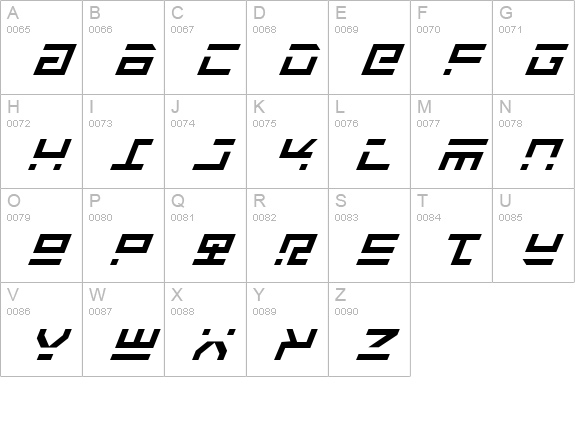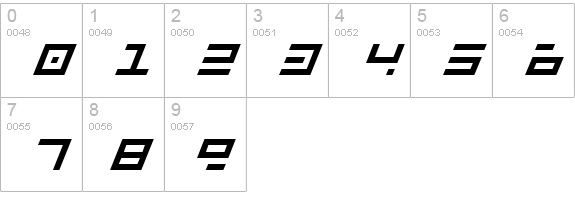
Rocket Type Italic is a distinctive, italic variant in the Rocket typeface family \xE2\x80\x94 well suited to design and typography projects.
Rocket Type Italic font is a sleek and modern typeface that exudes elegance and sophistication. With its slanted design and sharp edges, this font is perfect for adding a touch of flair to any project. The italicized style adds a sense of dynamism and movement, making it ideal for headlines, logos, and other design elements that need to stand out. What sets Rocket Type Italic font apart is that it is available for free download at FontsMarket.com. This means that you can easily access this stylish and versatile font without any cost, making it a valuable addition to your font collection. Whether you're working on a personal project or a professional design, Rocket Type Italic font is sure to elevate your work with its unique aesthetic and bold presence.